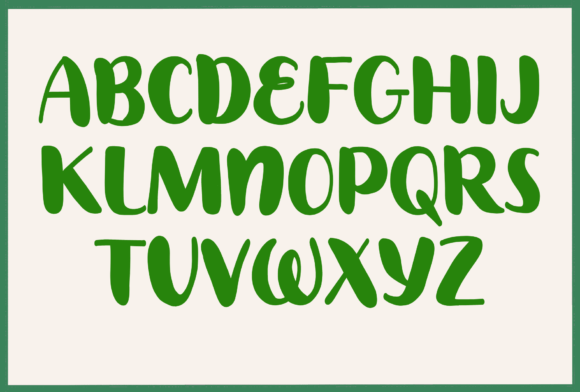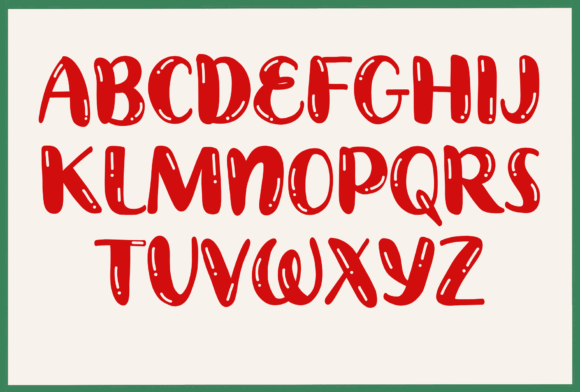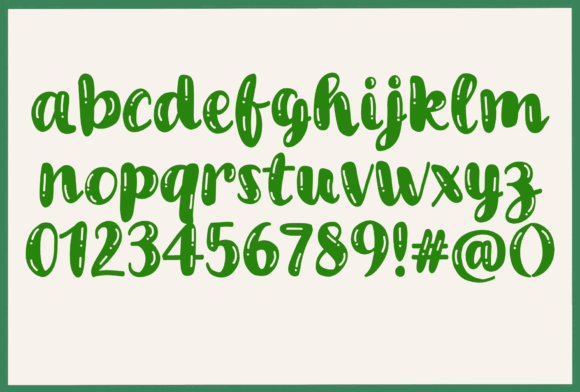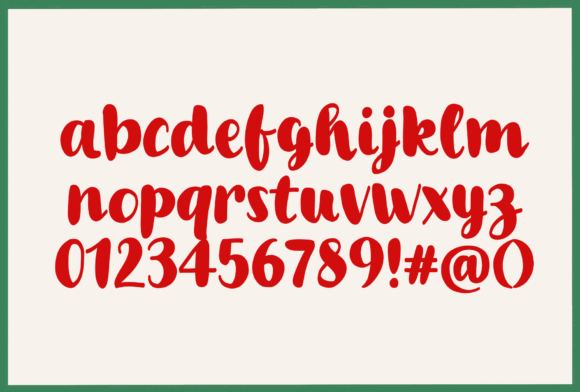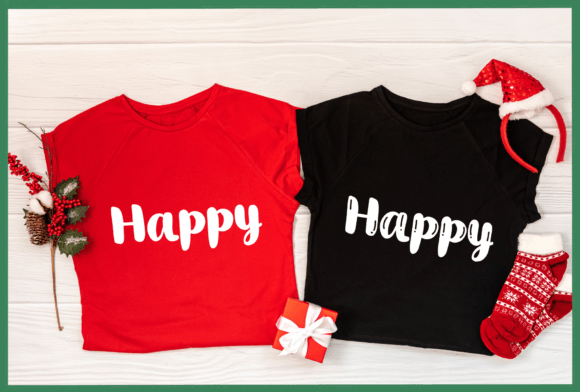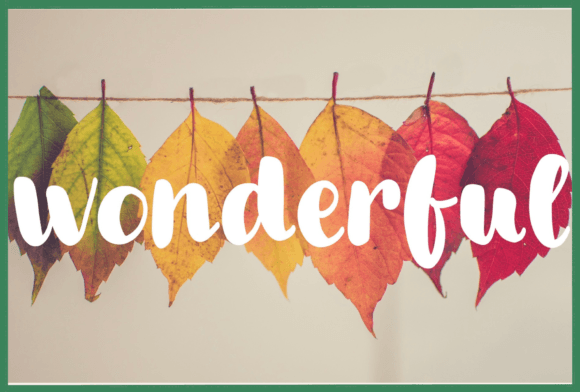
Deck the Halls with Christmas Font: A Joyful and Heartwarming Handwritten Typeface
As the holiday season approaches, designers and crafters alike are on the lookout for the perfect typography to add a touch of festive cheer to their creations. Look no further than Christmas Font, a joyful and heartwarming handwritten typeface that’s sure to bring the magic of the season to life. With its charming strokes and festive flair, this font is the perfect addition to any Christmas project, from greeting cards and gift tags to festive banners and holiday decor.
The Spirit of Christmas in Every Letter
Christmas Font is more than just a typeface – it’s an experience. Its whimsical, handwritten design evokes the warmth and merriment of the holiday season, transporting you and your audience to a winter wonderland of joy and celebration. Whether you’re creating a festive holiday card, a merry gift tag, or a cheerful banner, this font adds a touch of personality and charm that’s sure to delight.
Christmas Font is a versatile typeface that’s perfect for designers and crafters of all skill levels. Its easy-to-read design makes it ideal for use in a variety of projects, from digital designs to handmade crafts. Use it to add a personal touch to your holiday cards, gift wrapping, and decorations, or incorporate it into your digital designs, such as social media graphics, blog posts, and email newsletters.
Endless Possibilities for Creative Expression
With Christmas Font, the possibilities for creative expression are endless. Use it to create:
- Festive holiday cards and gift tags
- Cheerful banners and garlands
- Magical winter wonderland scenes
- Cozy holiday-themed social media graphics
- Delightful digital and print invitations
Why Choose Christmas Font?
So why choose Christmas Font for your holiday projects? Here are just a few reasons:
- Unique and eye-catching design: Christmas Font’s charming, handwritten design is sure to stand out from the crowd and add a touch of personality to your projects.
- Easy to read: Despite its whimsical design, Christmas Font is easy to read, making it perfect for use in a variety of projects, from digital designs to handmade crafts.
- Versatile: Use Christmas Font in a variety of projects, from holiday cards and gift tags to festive banners and social media graphics.
- Festive and fun: Christmas Font is the perfect way to add a touch of festive cheer to your projects and spread holiday joy to your audience.
Get Creative with Christmas Font
Ready to get creative with Christmas Font? Here are a few tips to help you get started:
- Experiment with different colors: Try pairing Christmas Font with a variety of festive colors, such as red, green, gold, and silver, to add a pop of color to your projects.
- Add some sparkle: Use Christmas Font to create a sparkly, glittery effect by layering the font with some festive glitter or snowflakes.
- Mix and match with other fonts: Try pairing Christmas Font with other festive fonts, such as snowflake-themed fonts or serif fonts, to create a unique and eye-catching design.
Christmas Font is a joyful and heartwarming handwritten typeface that’s sure to bring the festive spirit to life. With its charming strokes and festive flair, this font is the perfect addition to any Christmas project, from greeting cards and gift tags to festive banners and holiday decor. Whether you’re a designer or crafter, Christmas Font is the perfect way to add a touch of merriness and cheer to your holiday creations. So why wait? Download Christmas Font today and start spreading holiday cheer!